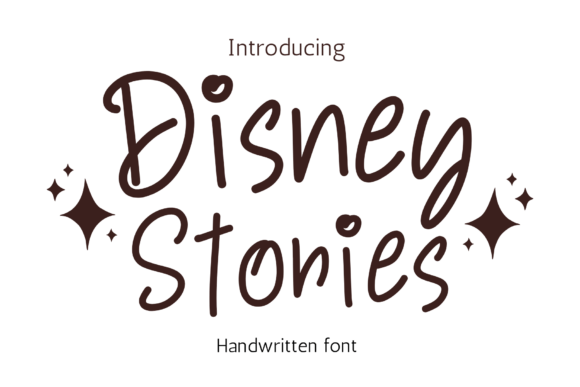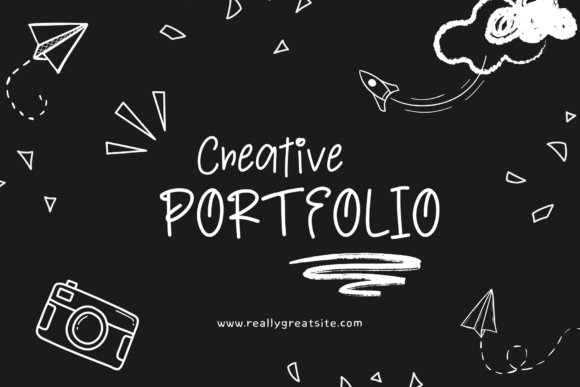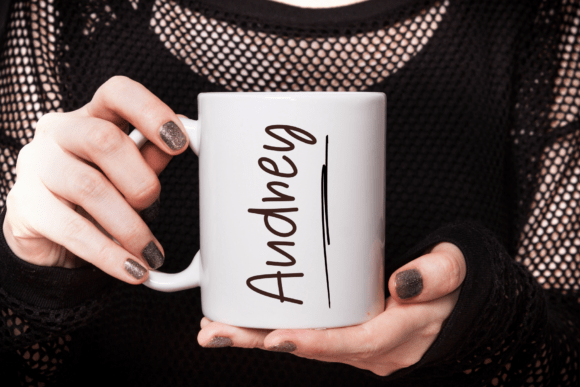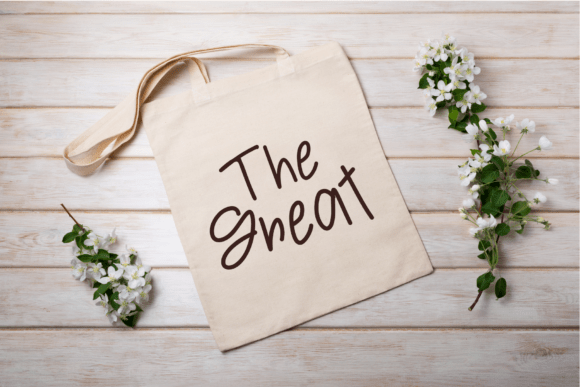
Disney Stories Font: A Playful Handwritten Font for Cricut & DIY
About the Disney Stories Font
Experience the unique personality of Disney Stories Font, a font designed for impact. Disney Stories is Handwritten font. It embodies playfulness and authenticity and is the perfect choice for all your favorite projects, or even for blog posts, logos, branding, ads, invitations, greeting cards, planners, photo albums, decorations, and much more. Add it to any of your designs, and enjoy the results!
Disney Stories excels in display applications such as headlines, logos, and short-form content like social media posts or invitations. Its playful nature makes it ideal for children’s products, branding for family-oriented businesses, or projects requiring a whimsical touch. However, its handwritten style is less suitable for body text or lengthy paragraphs due to potential readability issues.
For optimal visual harmony, pair Disney Stories with a clean sans-serif like Open Sans for body text, providing a strong contrast and enhancing readability. Alternatively, a simple serif such as Lora could add a touch of sophistication while maintaining a friendly feel. Avoid pairing it with other highly decorative or overly stylistic fonts, which could create visual clutter.
The font projects a friendly, approachable, and undeniably playful personality. It’s best suited for brands targeting a young audience or those wishing to convey a sense of fun and lightheartedness.
Disney Stories Font Usage Examples
Disney Stories Font Example